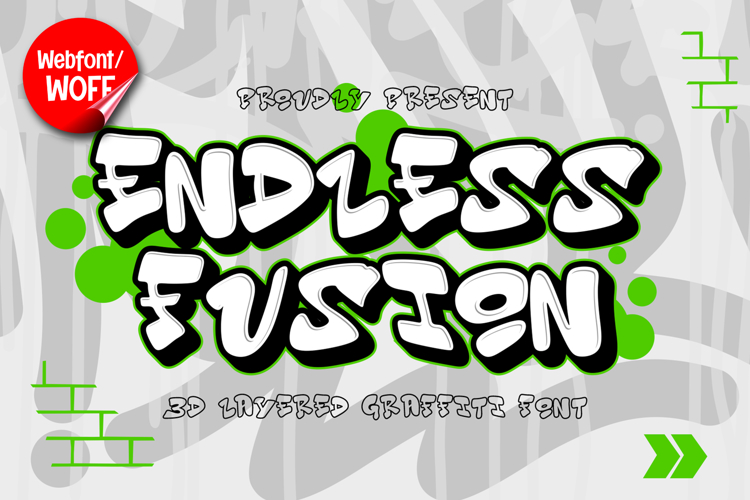
Endless Fusion | 3D Layered Graffiti Webfont for Urban
Endless Fusion is a 3D layered graffiti webfont designed to bring depth, energy, and bold street character into modern website design. Inspired by urban lettering and dimensional graffiti art, this font combines strong shapes with layered effects to create a visually powerful and dynamic appearance. It is an excellent choice for projects that require a standout typographic style with a modern urban edge.
Endless Fusion features a complete set of uppercase characters designed with bold graffiti forms and layered 3D construction. The dimensional effect adds depth and structure to each letter, making the text feel more dynamic and engaging. These letterforms are ideal for headlines, banners, hero sections, and featured content where strong visual presence is essential. The layered design helps establish a clear hierarchy and enhances readability at larger sizes.
In addition to letters, the font includes numbers and punctuation, allowing flexible usage across various website elements. It works well for promotional content, event announcements, product highlights, and navigation accents. Each character maintains a consistent layered graffiti style, ensuring a cohesive and unified visual identity throughout the design.
With multilingual support, Endless Fusion includes a wide range of accented characters, making it suitable for international websites and global audiences. This allows content to be displayed clearly across different languages while preserving the bold and expressive graffiti aesthetic.
The 3D layered graffiti style of Endless Fusion makes it especially suitable for urban-themed websites, streetwear brands, music platforms, gaming interfaces, and creative portfolios. Its dimensional look adds movement and depth, helping designs stand out in visually competitive environments. The graffiti influence brings authenticity and a strong street-inspired character to the overall layout.
Despite its bold and layered appearance, Endless Fusion is designed with readability in mind. The spacing and structure of each character are carefully balanced to ensure clarity, particularly in display sizes. This makes it effective for impactful headings and short content elements where both style and usability are important.
Endless Fusion is a webfont that combines graffiti aesthetics with dimensional layering and modern digital performance. Its bold shapes, depth effects, and urban energy create a distinctive typographic presence that enhances website design. For projects that require strong visual impact, creative expression, and a modern graffiti style, Endless Fusion offers a powerful and engaging solution.